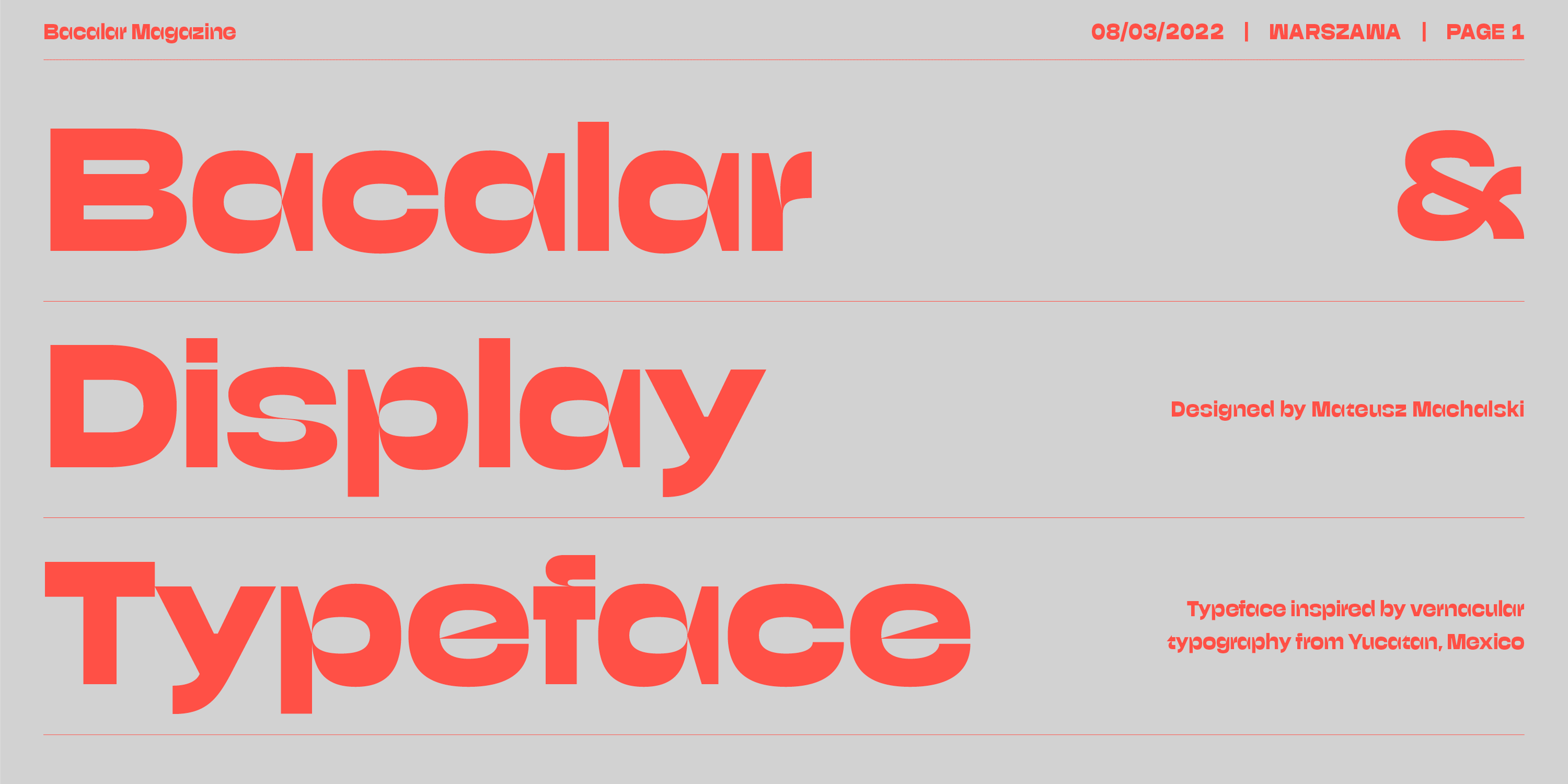
Bacalar Font is perfect for tropical resort branding, Mexican tourism marketing, Caribbean vacation promotions, lagoon conservation campaigns, eco-tourism communications, tropical destination signage, coastal adventure graphics, authentic Mexican cultural events, sustainable travel initiatives, and pristine nature preserve materials. This vibrant typeface excels in applications where tropical paradise and crystal-clear waters need to be communicated with natural beauty and serene elegance that embodies the essence of untouched lagoons and the breathtaking magnificence found in Mexico's stunning coastal treasures and protected natural environments.
What makes Bacalar Font exciting is its remarkable ability to capture the mesmerizing beauty and crystal-clear tranquility of Mexico's famous Lagoon of Seven Colors through its fluid letterforms that seem to reflect the pristine turquoise waters and natural serenity that make Bacalar one of the world's most spectacular natural wonders. The font embodies the spirit of tropical paradise with its flowing construction and water-inspired proportions that suggest the gentle movement of lagoon waters and the peaceful harmony found in protected natural environments. Its organically crafted character details and serene personality create an atmosphere of natural sanctuary that resonates with eco-tourists, conservation advocates, and nature enthusiasts who appreciate the irreplaceable beauty of pristine natural environments and sustainable tourism practices.
The Bacalar Font family typically includes Light, Regular, Medium, and Bold weights, each maintaining the signature tropical characteristics and lagoon-inspired elegance. Some versions offer wave-flowing variants that enhance the aquatic aesthetic, alternative character sets with tropical symbols and nature elements, and specialized treatments that amplify the paradise atmosphere. The family may also include condensed styles for efficient tourism layouts and display cuts optimized for maximum tropical impact in eco-tourism and conservation applications requiring authentic natural beauty representation and environmental consciousness.
Whether you're creating tropical destination brands, eco-tourism materials, or natural conservation communications, Bacalar Font Free Download delivers the perfect tropical authenticity your paradise-focused projects deserve. Its lagoon character and natural styling make it an invaluable choice for eco-resorts, conservation organizations, and sustainable tourism businesses working in tropical destinations, environmental protection, and responsible travel sectors where authentic natural beauty and environmental stewardship are essential for promoting sustainable tourism practices that preserve precious natural treasures for future generations to experience and protect.